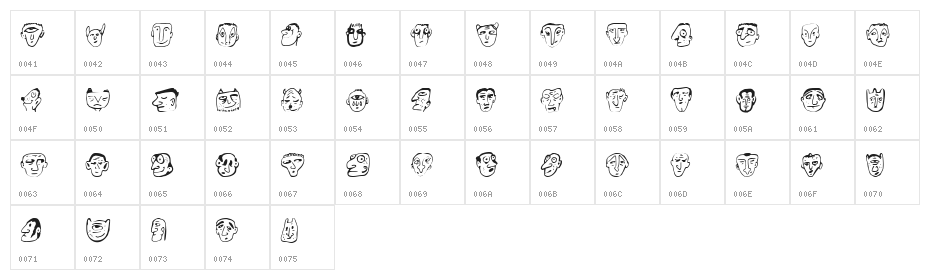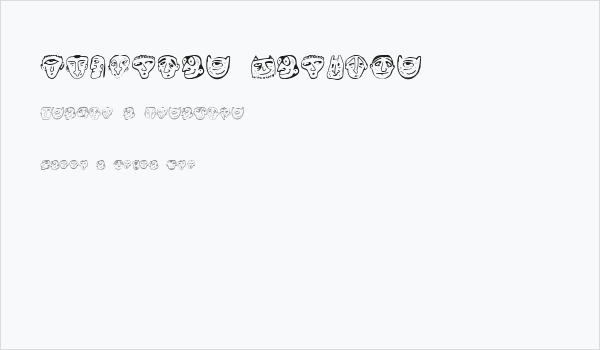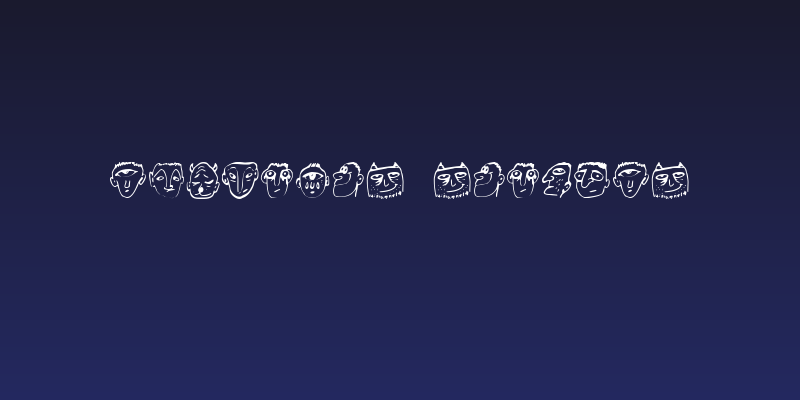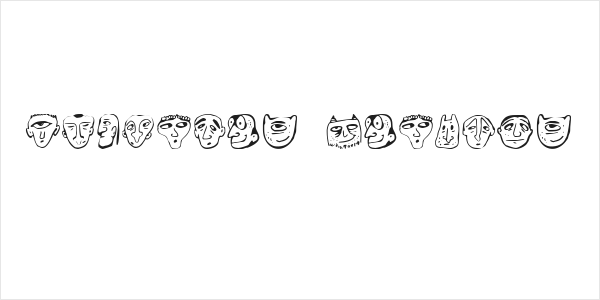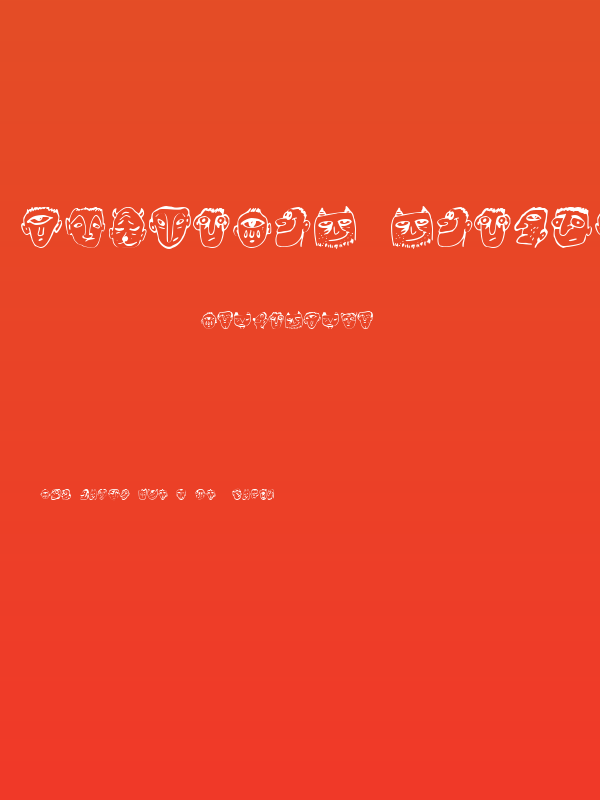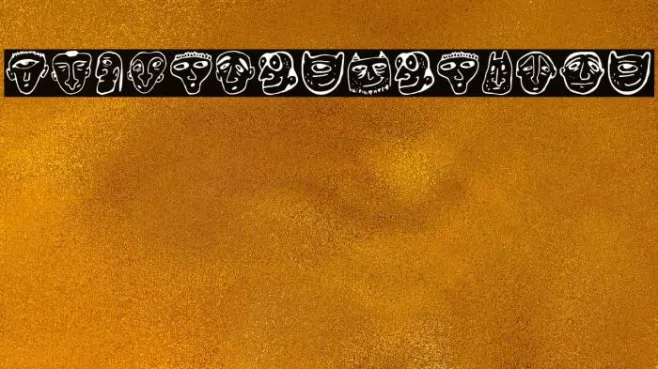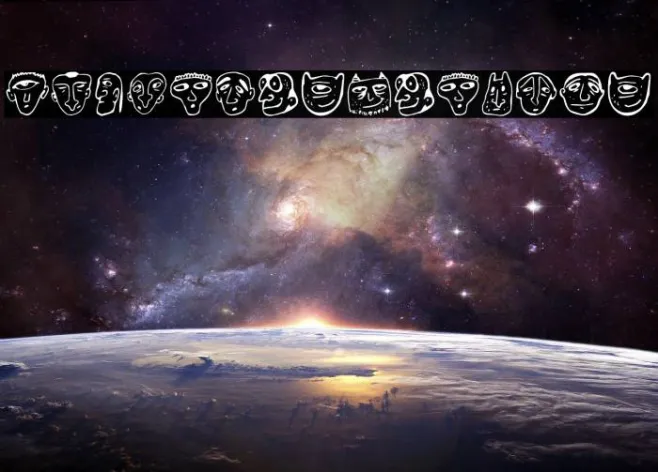
Ansigter Regular Font
Ansigter Regular Description
This is a decorative and whimsical font featuring a series of unique, hand-drawn faces. Each character is represented by a different face, showcasing a variety of expressions and styles. The font is highly artistic, with each face having distinct features, from exaggerated eyes to quirky hairstyles. The line work is bold and varied, giving each character a playful and dynamic appearance. This font is perfect for creative projects that require a touch of humor and individuality. Its artistic nature makes it stand out, providing a unique visual element to any design.
| Overall Style | Whimsical, Artistic |
| Use Case | Logos, Posters, Artistic Branding |
| Proposed Projects | Ideal for creative projects such as posters, album covers, children's books, and artistic branding. |